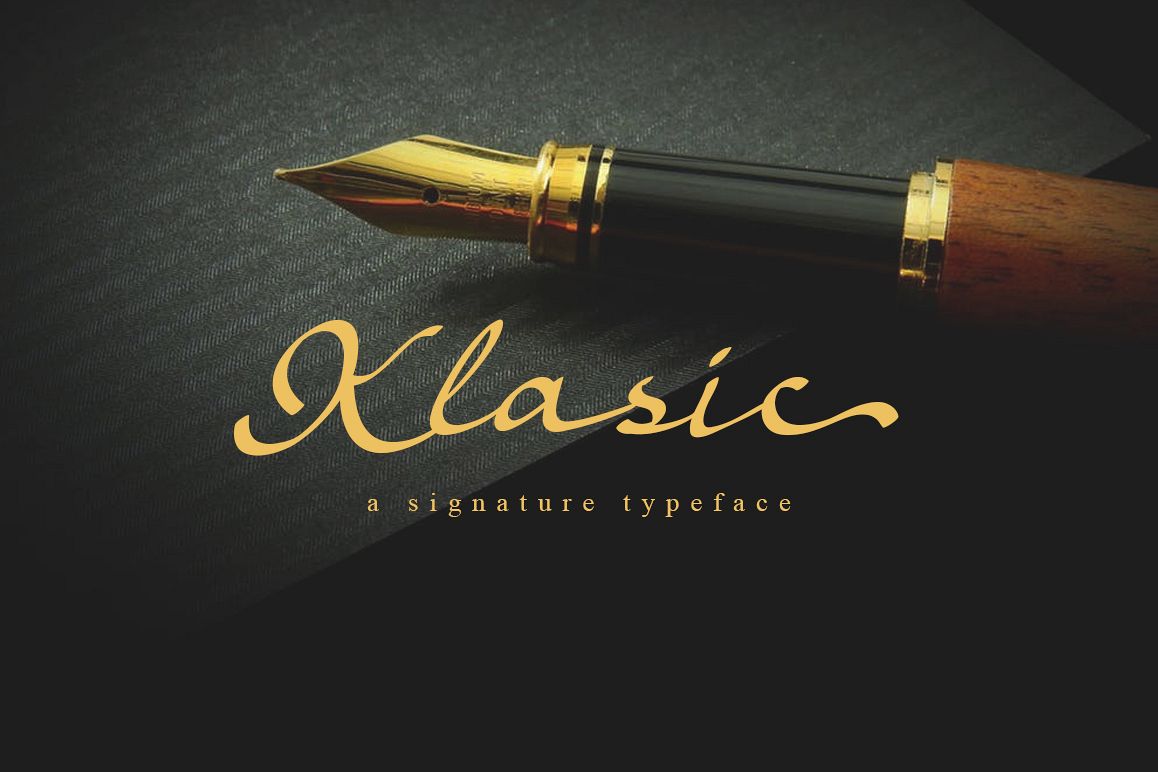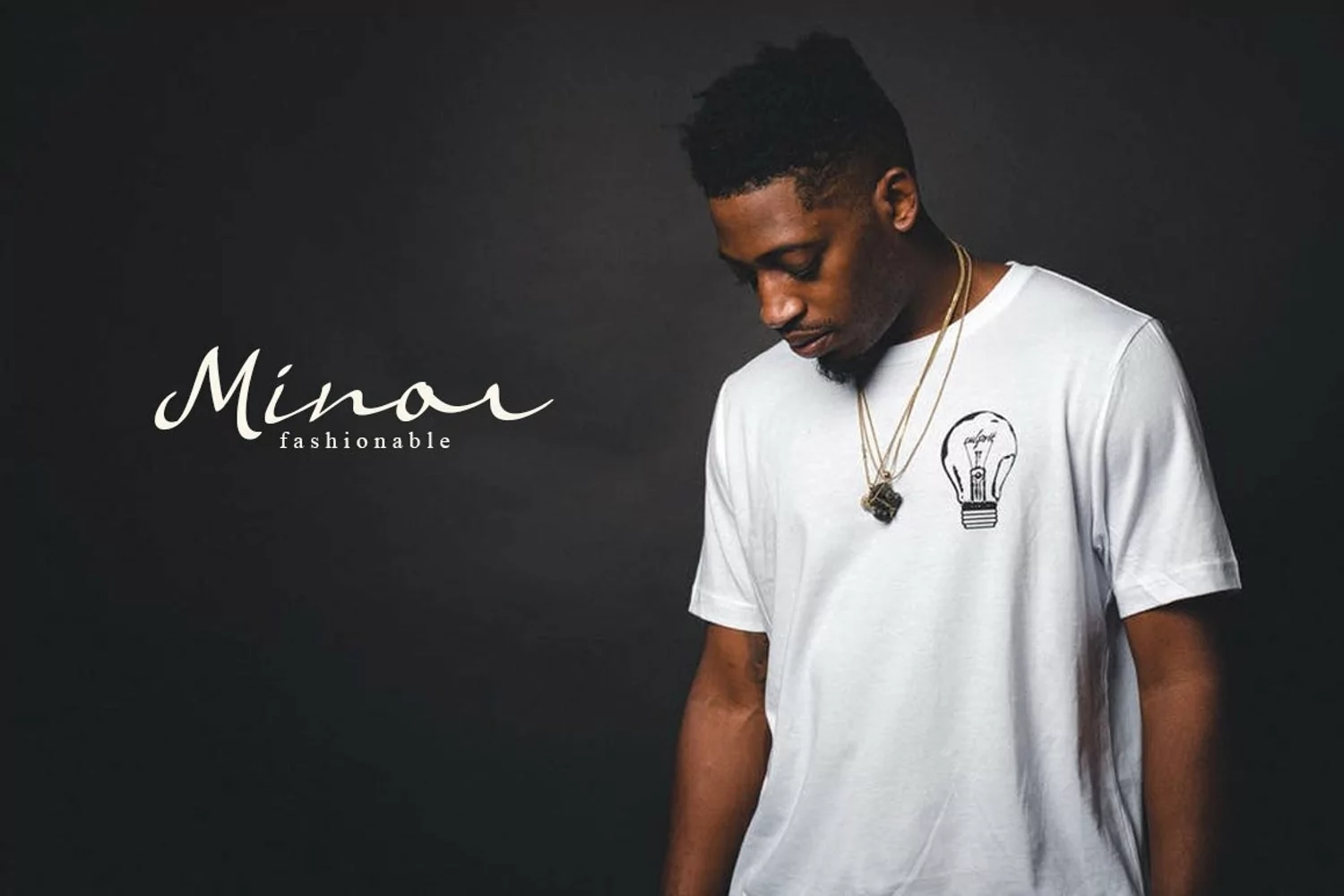
Klasic Signature Script
Klasic Signature Script is a beautiful handmade script font, vintage calligraphy & fresh typeface. Klasic Signature Script suitable for titles, signatures, logos, t-shirts, letterheads, signage, labels, newsletters, posters, badges, wedding invitations such as greeting cards, branding material, business cards, quote, posters, and more!
Klasic Signature Script Features:
• Uppercase, Lowercase, Numerals, etc
• Stylistic alternates with number 1 after letter.